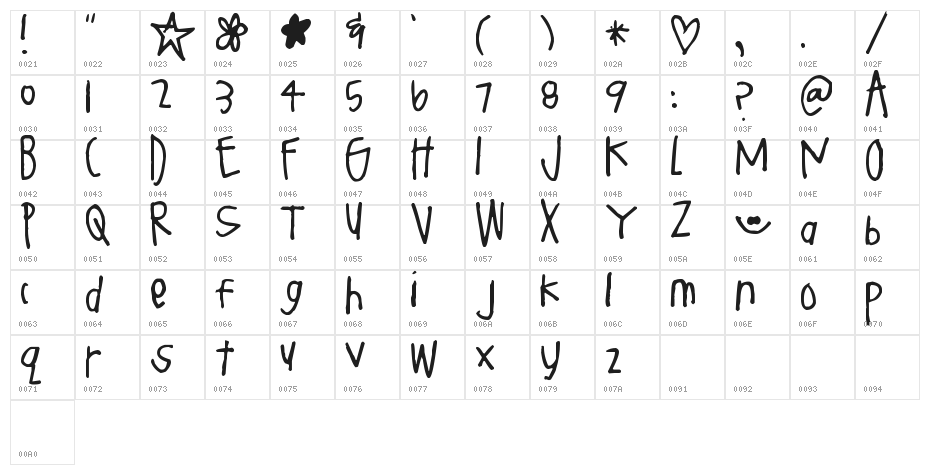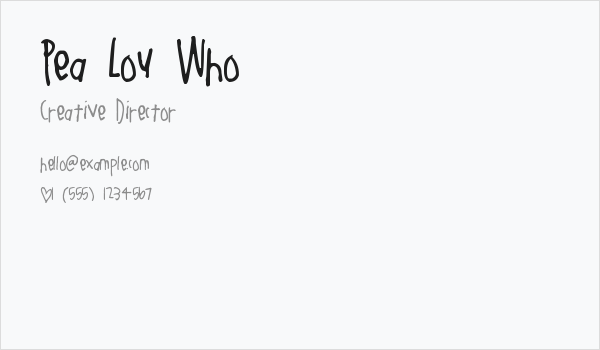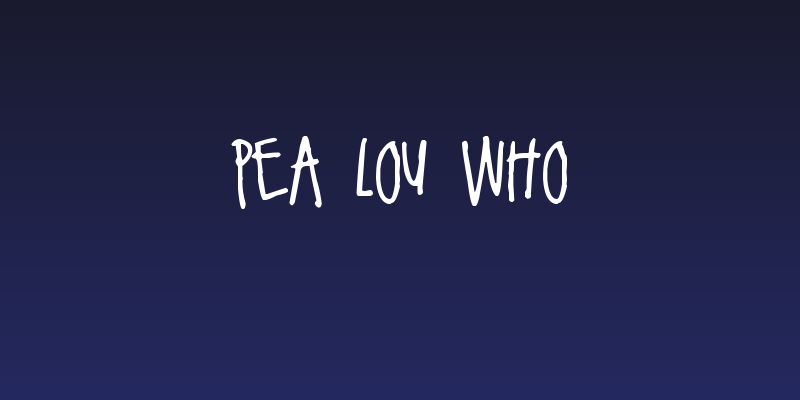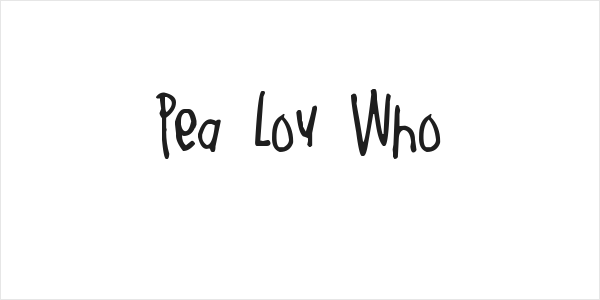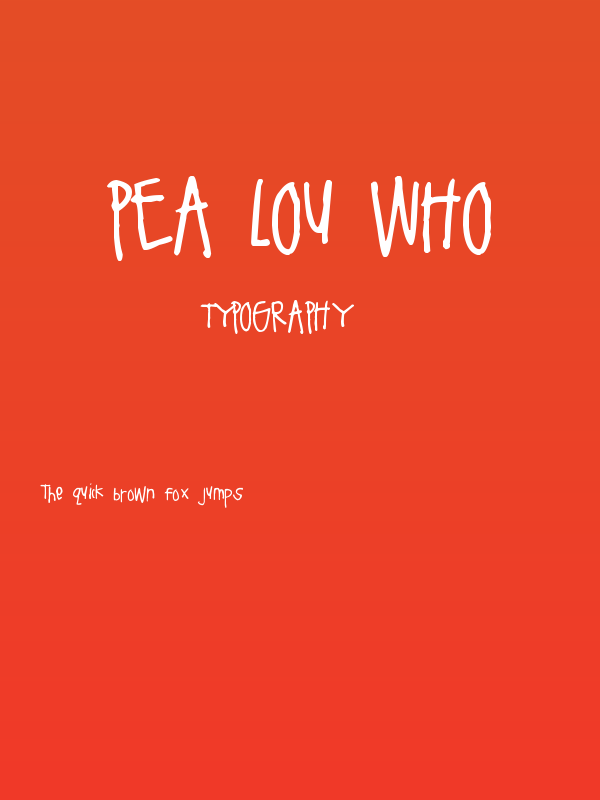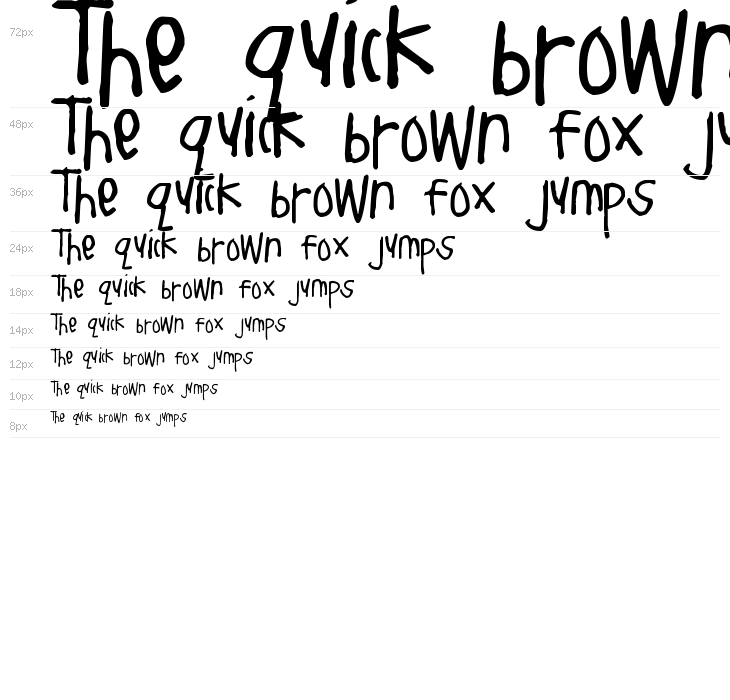
Pea Lou Who Font
Pea Lou Who Description
This playful and whimsical font features a hand-drawn aesthetic with irregular strokes and a casual feel. The uppercase letters are tall and narrow, while the lowercase letters maintain a consistent style with a slightly rounded appearance. Numbers are bold and easily distinguishable, adding to the font's charm. Special characters are creatively designed, incorporating unique elements like stars and flowers. The overall style is informal and friendly, making it suitable for projects that require a personal touch.
| Proposed Projects | Ideal for children's books, greeting cards, playful branding, and DIY projects. |